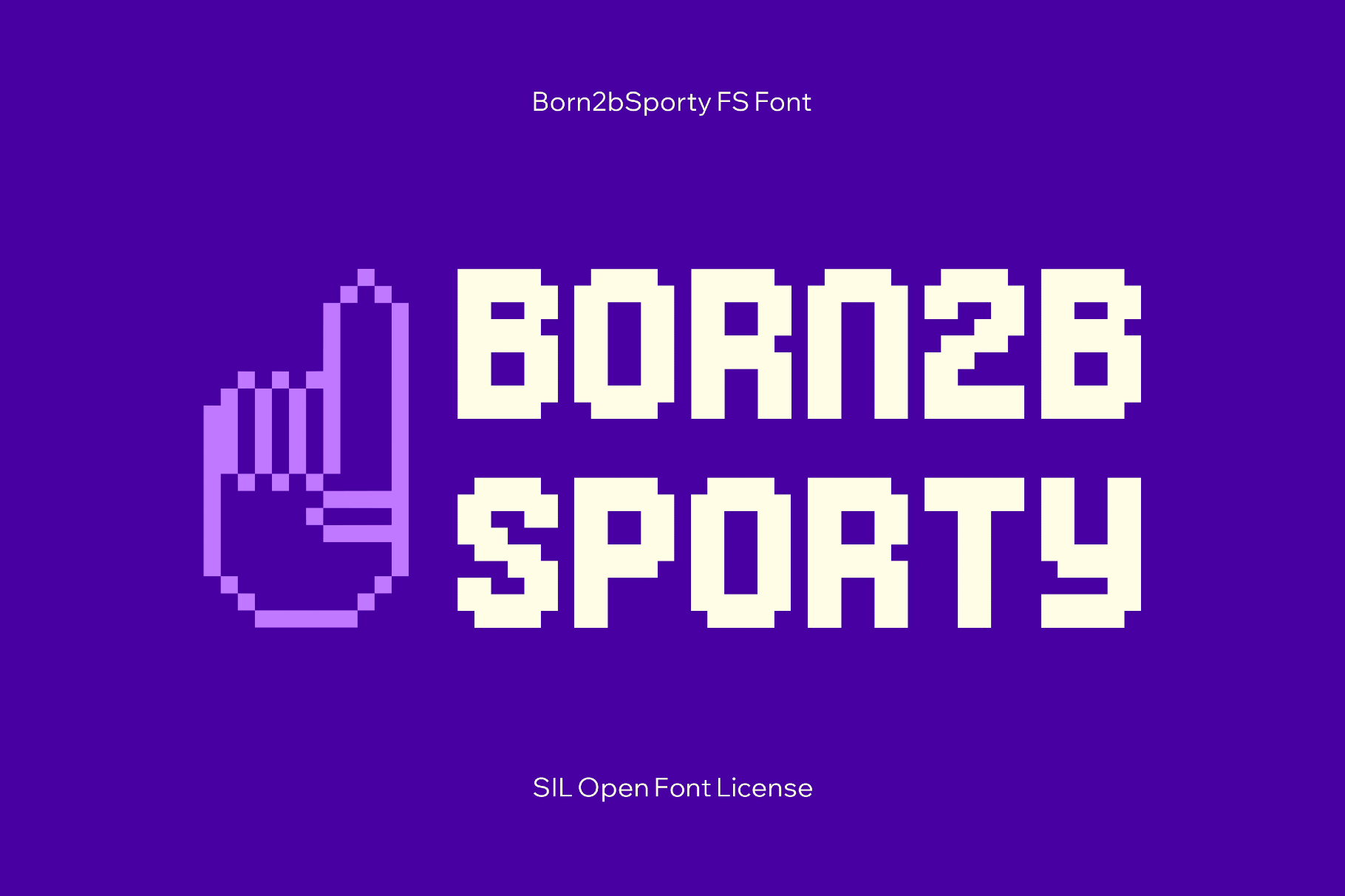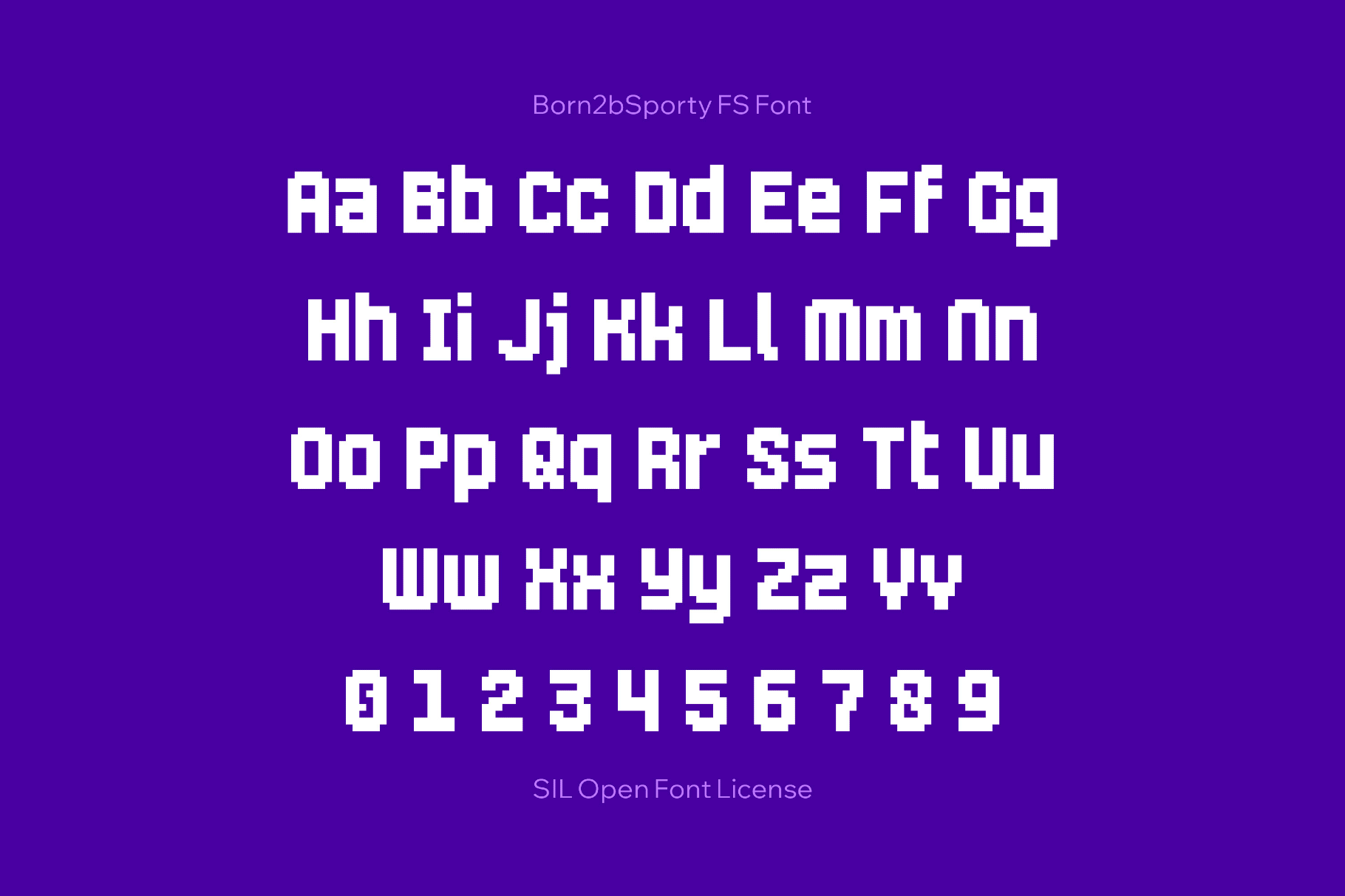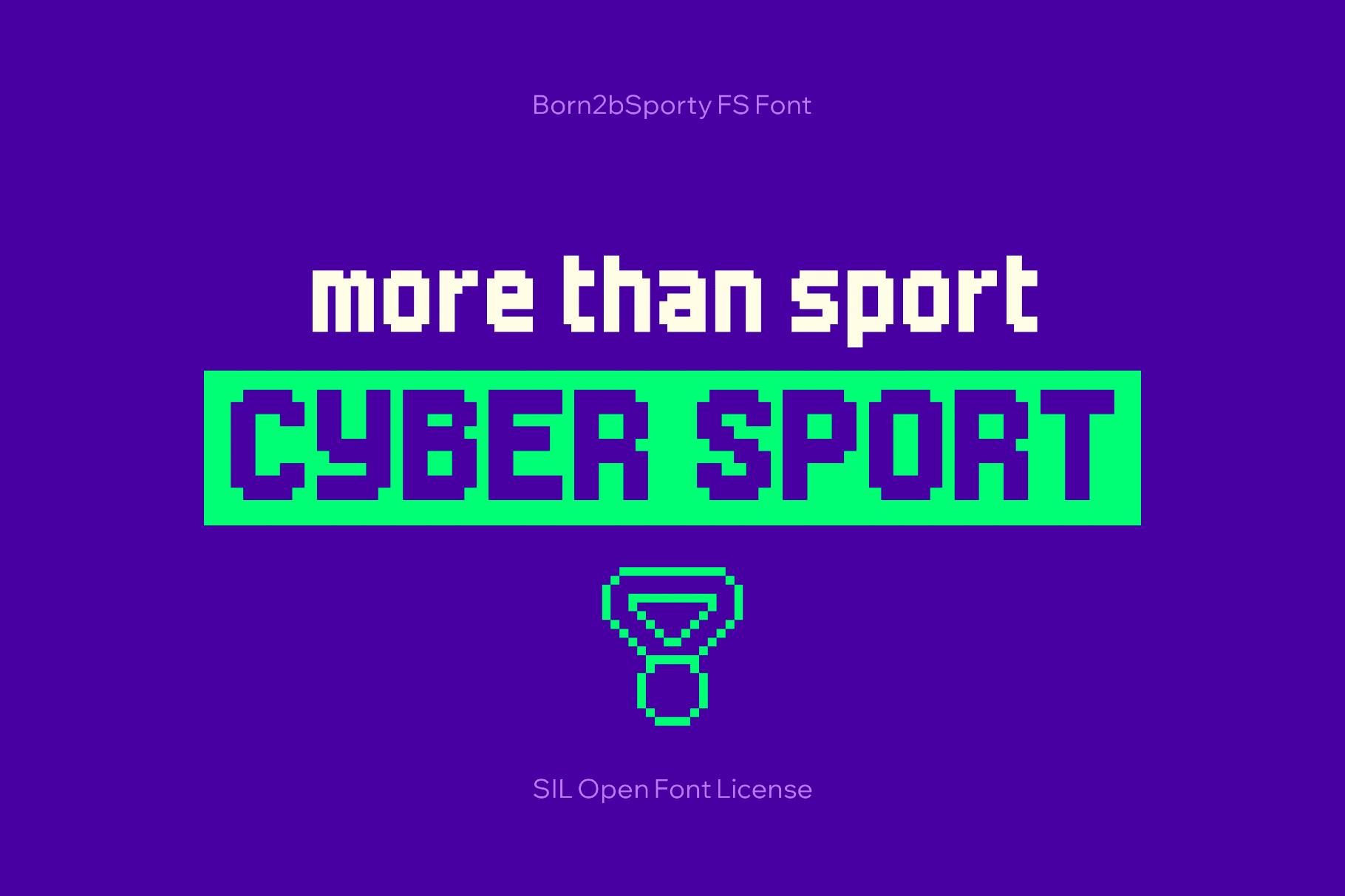
Born2bSporty FS Font
Born2bSporty packs bold pixel energy into a compact grid and turns the word into a scoreboard headline with a clear athletic accent. The square shapes, tight spacing, and strong vertical rhythm recall jersey numbers, arcade titles, and retro sports HUDs, so this font suits projects that need loud, graphic type. Extensive Unicode coverage makes it handy for multilingual game interfaces, esports branding, and streaming overlays.